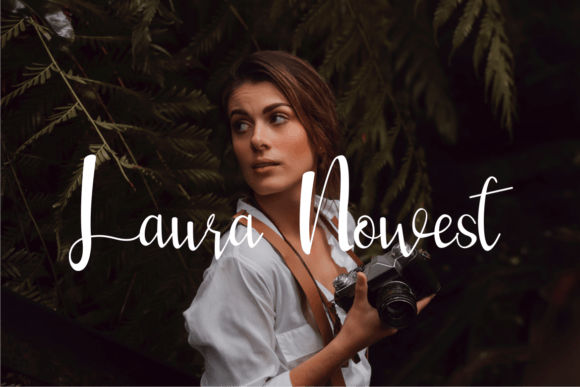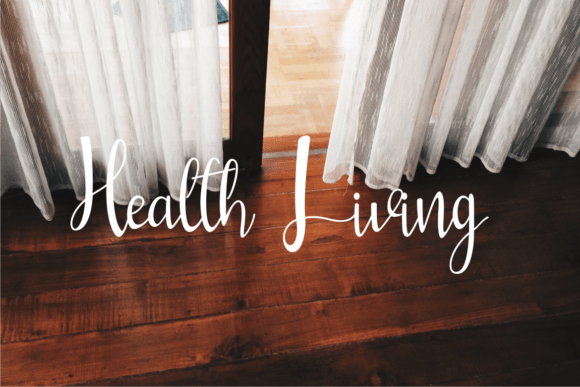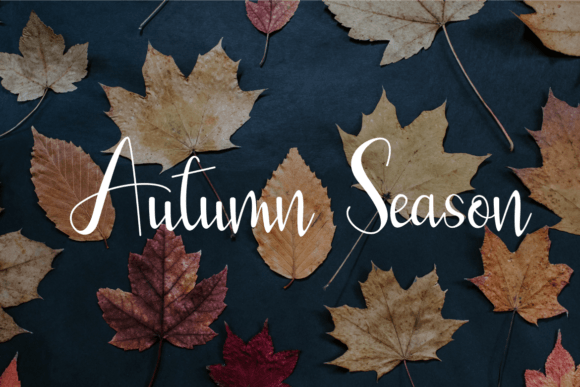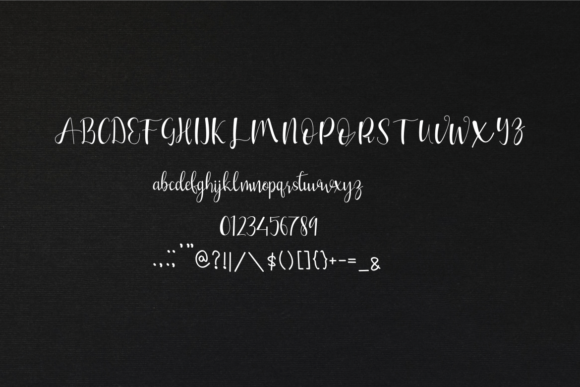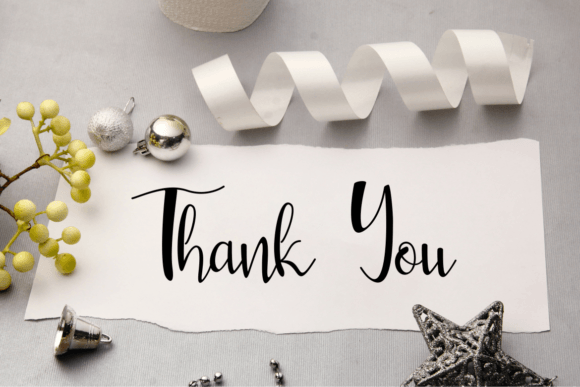
Introduction to Okarisuna Font
Have you ever been working on a creative project, and suddenly, you’re stuck on the perfect font to bring your vision to life? It’s like trying to find the missing piece of a puzzle – frustrating, yet crucial. For designers, the right font can be the difference between a decent design and a stunning one. This is where the Okarisuna Font comes in, offering a cool and modern handwritten script font that’s sure to elevate your creations.
With its sleek and sophisticated design, the Okarisuna Font is the perfect addition to any designer’s library. Whether you’re working on a high-quality design project or a simple creative endeavor, this font has the potential to take your work to the next level. Plus, with its transparent background, it’s easy to integrate into any design without any visual distractions.
Key Features of Okarisuna Font
- High-quality, unique font design ideal for creative projects, offering a distinctive touch to any design resource.
- Unique characteristics include elegant lines, subtle curves, and a sophisticated aesthetic, making it a valuable design resource for professionals and hobbyists alike.
Honest Review: Okarisuna Font
As a designer, I’m always on the lookout for high-quality design resources to enhance my creative projects. Recently, I came across the Okarisuna Font, and I was impressed by its unique features.
What works well about the Okarisuna Font is its versatility and range of styles. The font is available for free download, making it an excellent choice for designers on a budget. It also offers a transparent background option, which is perfect for creating stunning designs with a touch of elegance.
The font’s high quality is evident in its smooth lines and well-balanced characters. It’s ideal for use in various creative projects, from logos to brochures.
- ✨ High-quality font with smooth lines
- ✨ Versatile and range of styles
However, there are a few limitations to consider: ⚠️ The font may not be suitable for very small text sizes, and it may require some tweaking to get the desired look. Additionally, the font’s unique style may not be for everyone.
Overall, I’m impressed with the Okarisuna Font and would definitely recommend it as a design resource for any creative project. With its high quality and versatility, it’s a great addition to any designer’s toolkit.
Okarisuna Font is ideal for use in creative projects, such as logos, brochures, and business cards. It’s also a great design resource for presentations, documents, and social media graphics. With its high-quality design and transparent background, Okarisuna Font is a versatile and useful tool for any designer or creative professional.